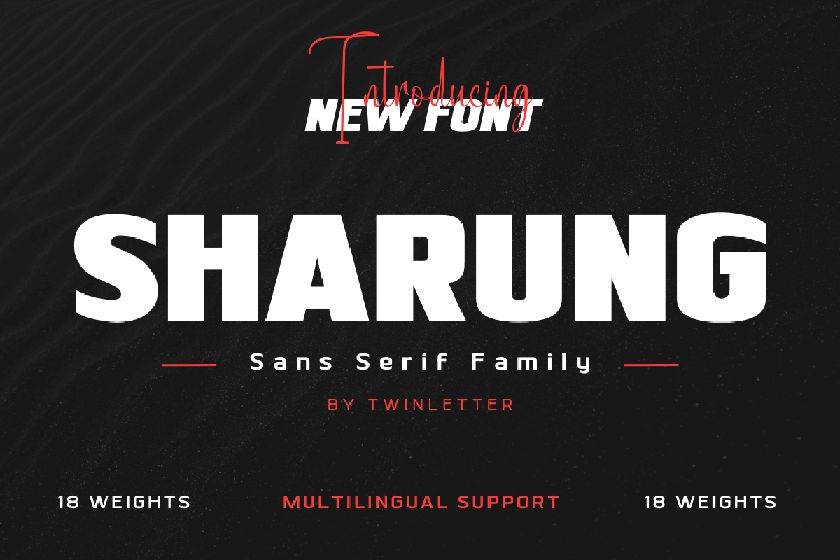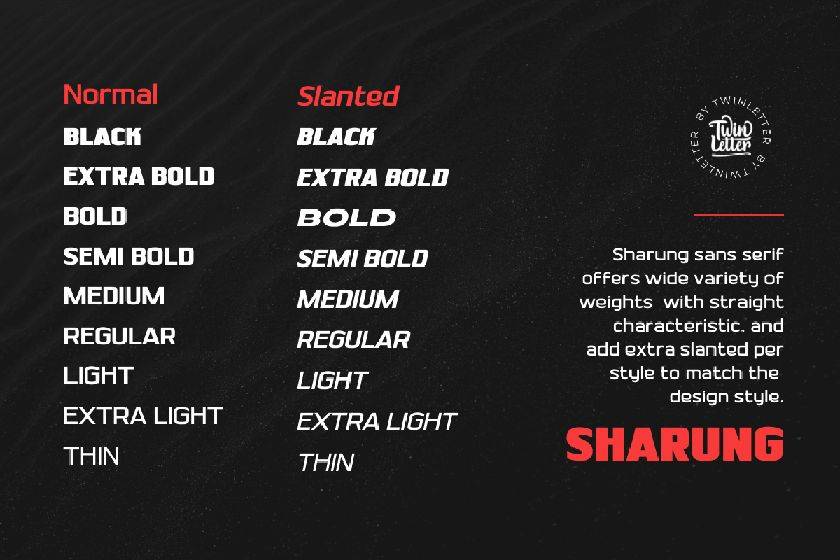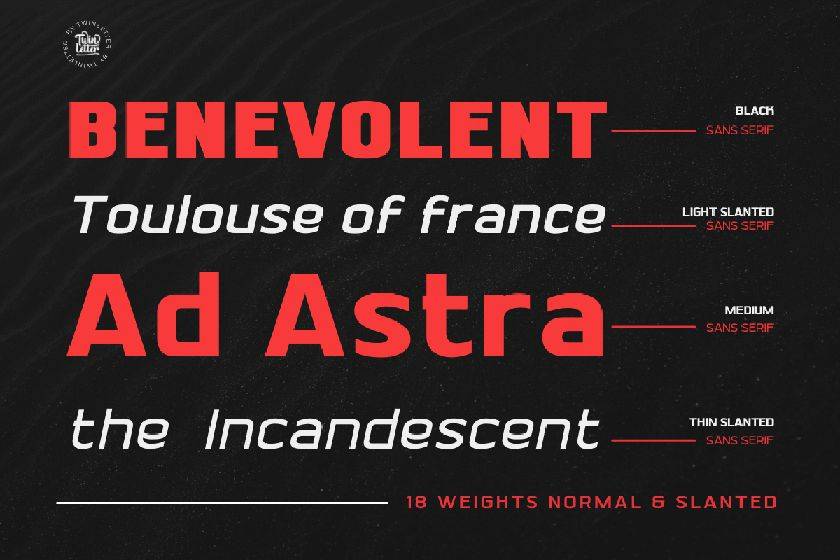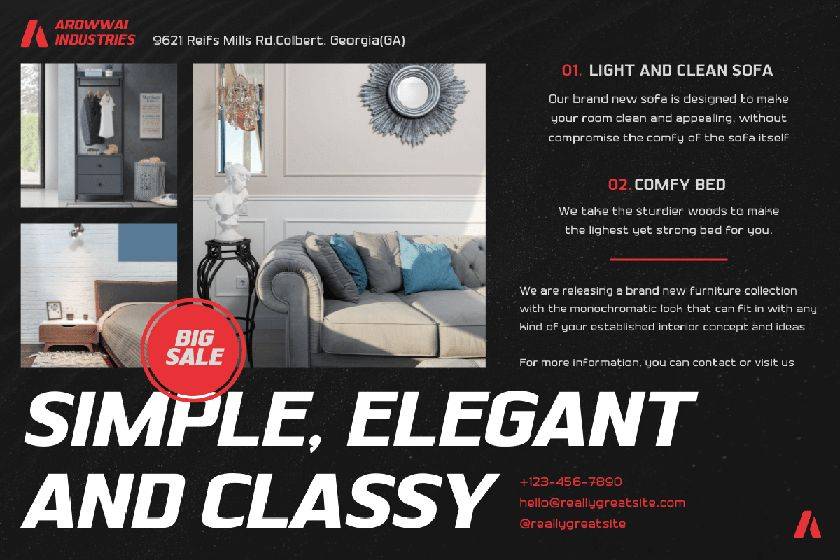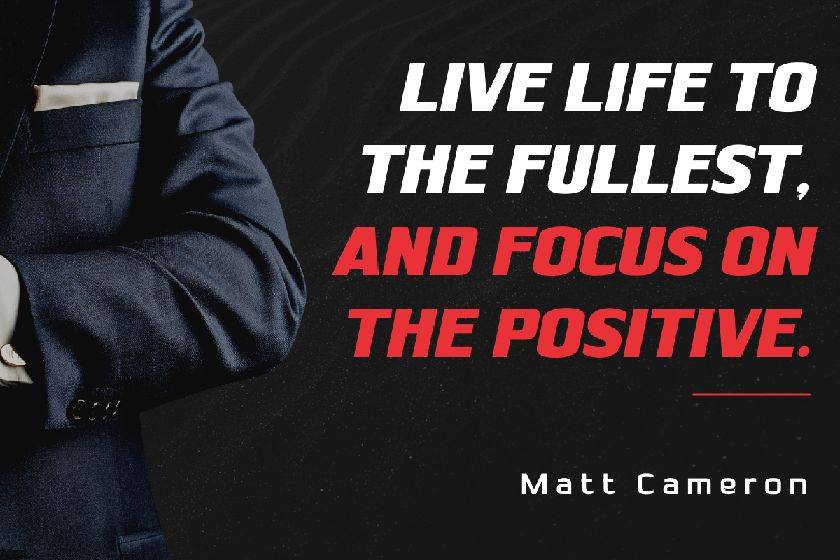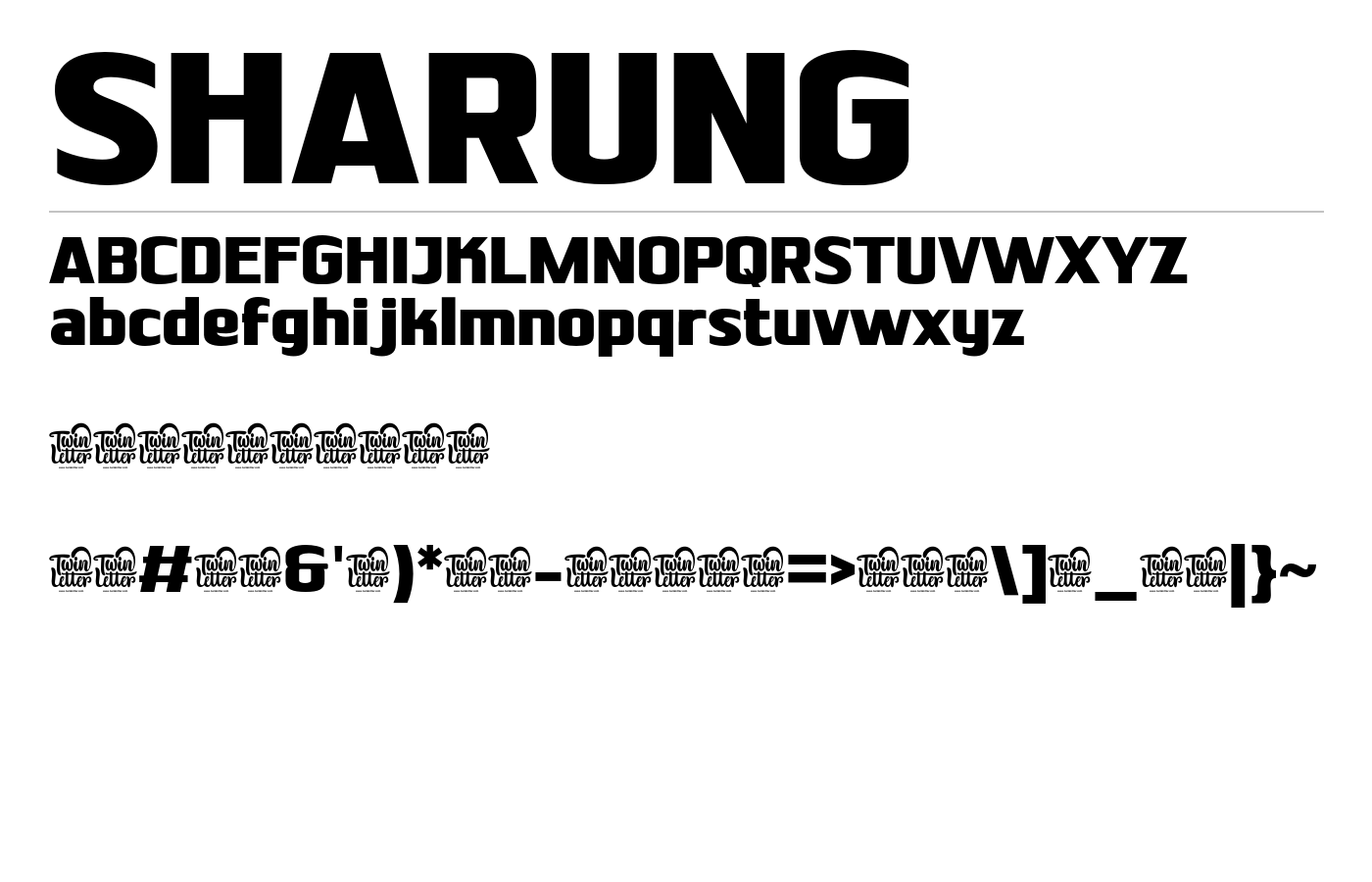
Sharung is a bold, condensed sans serif font with a strong, modern presence. Its geometric shapes and solid stroke weight create a confident and dynamic feel, making it ideal for striking headlines, logos, and branding projects that need a powerful visual impact. The font’s clean lines and high legibility also make it suitable for contemporary editorial and digital use where boldness and clarity are essential.
Sharung Font
About Sharung Font
| Font family | Sharung Font |
| Designer | Rozak |